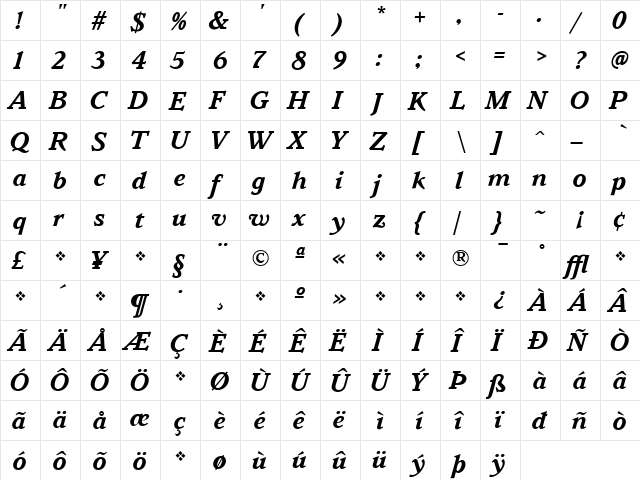
Parkinson ItalicBold
Design Context for Parkinson Typeface
Parkinson takes a measured approach to typography — its balanced proportions and neutral character make it a reliable workhorse for both digital and print work. Its italic angle brings a sense of urgency and motion to the letterforms. The heavy weight commands attention and anchors typographic hierarchies.
Pro Tip: Try Parkinson for annotation and caption copy alongside an upright companion — the contrast in angle creates a dynamic but ordered typographic system.